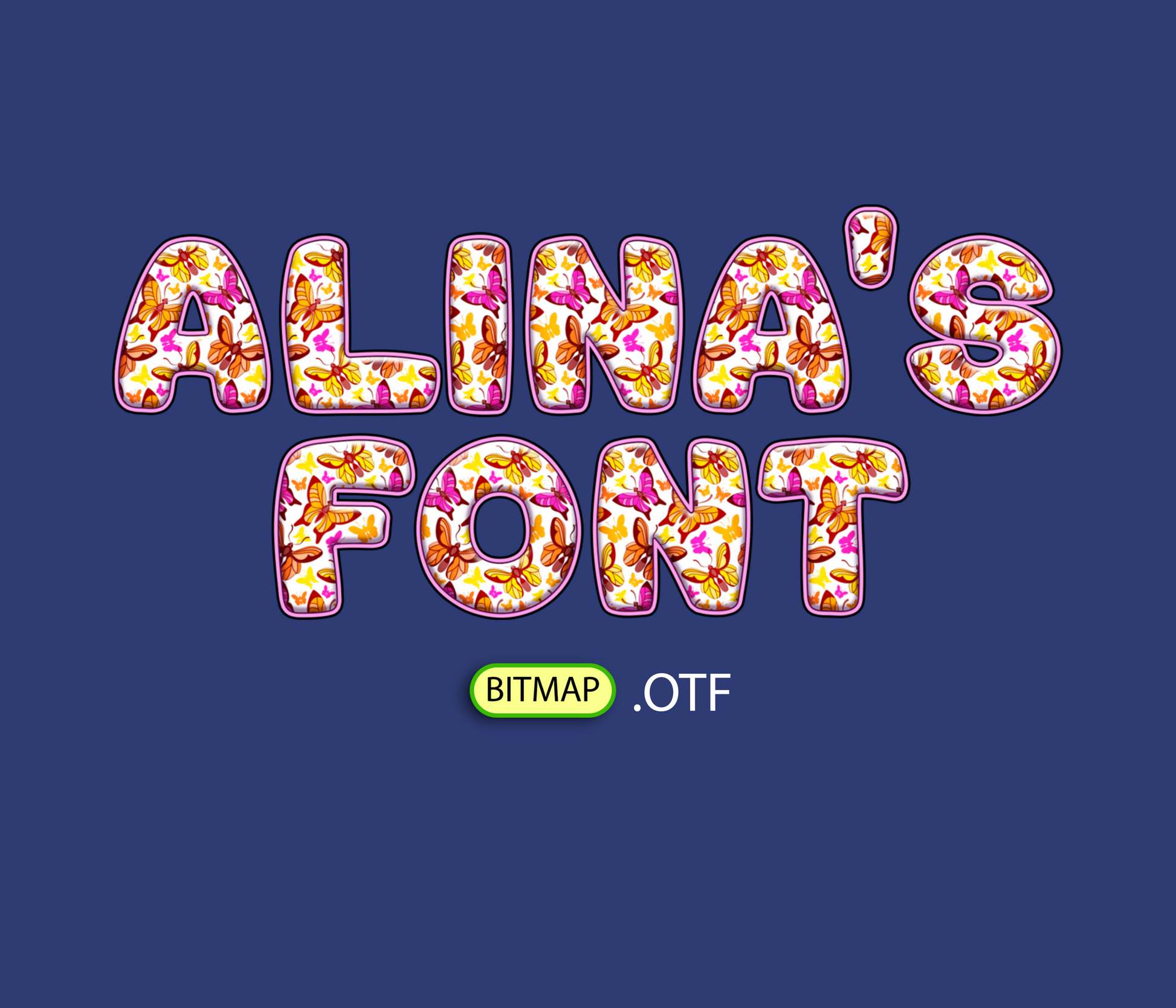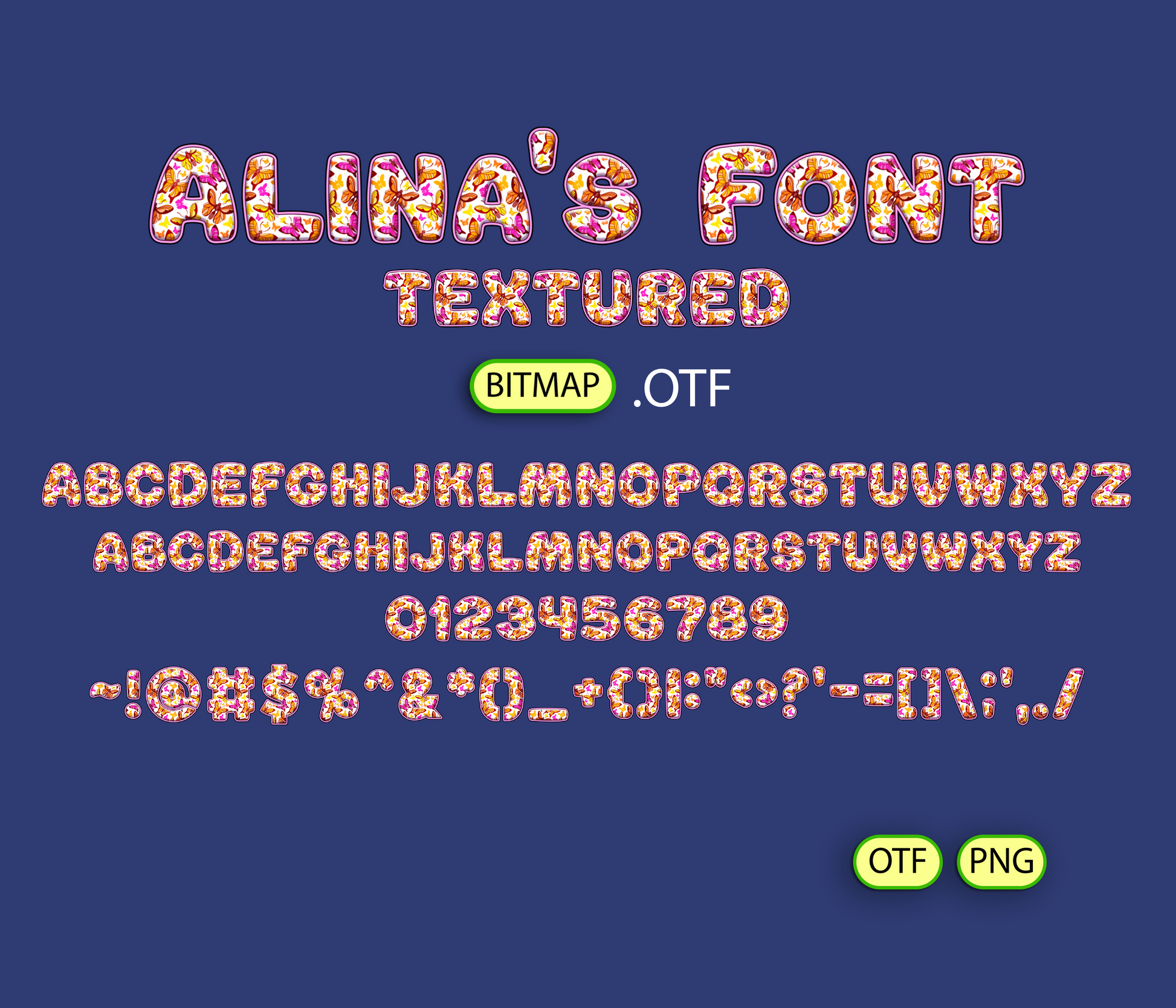
Butterfly Pattern Typeface Textured Flutter Edition
Discover the mesmerizing world of nature's most stunning fliers with our Butterfly Pattern Typeface, embodying the intricate wing details, iridescent scales, and graceful metamorphosis of these aerial dancers. Ideal for botanical enthusiasts, wildlife photographers, storybook creators, and design professionals, this font channels the enchanting, delicate essence of winged pollinators into your creative works. Craft stunning displays, garden-inspired merchandise, or online content with the shimmering, prismatic beauty of monarch migrations and flower-filled meadows.
Our Butterfly Pattern Typeface showcases elegant wing motifs, intricate scale textures, and fluid letterforms that mirror the sophisticated and ethereal nature of these remarkable creatures. Perfect for:
- Nature Business: Design eye-catching branding, product packaging, and marketing materials for wildlife sanctuaries, pollinator gardens, and sustainable lifestyle companies
- Children's Design: Excellent for picture books, transformation-themed celebrations, and educational resources that inspire wonder about life cycles and natural magic
- Digital Media: Transform websites, social platforms, and blogs with flowing typography and visuals that convey lightness, beauty, and organic movement
- Educational Content: Enhance learning materials, field guides, and awareness campaigns focused on pollinator protection and habitat conservation
- Personal Projects: Add natural elegance to invitations, handmade crafts, and interior design elements inspired by garden sanctuaries and wildflower fields